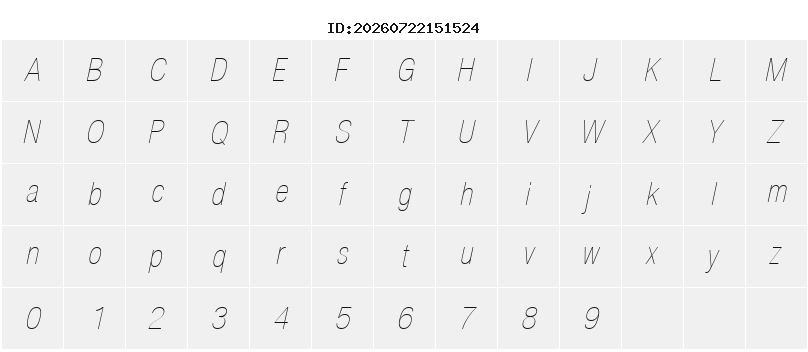
HelveticaNeue LT 27 UltLtCn Preview
• Font Name: HelveticaNeue LT 27 UltLtCn
• Font Style: Oblique
• Font ID: Linotype Library GmbH: Helvetica LT 27 Ultra Light Condensed Oblique: 2002
• Full Font Name: Helvetica LT 27 Ultra Light Condensed Oblique
• PostScript Name: HelveticaNeueLT-UltraLigCondObl
About HelveticaNeue LT 27 UltLtCn.ttf
HelveticaNeue LT 27 UltLtCn.ttf is a modern, elegant sans-serif font designed for ultimate readability and visual harmony. Perfect for branding, headlines, web design, and print materials.